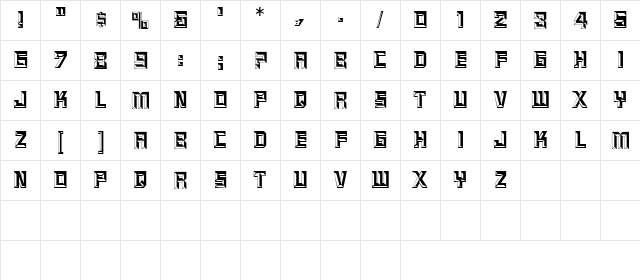
Pilgrim Normal
Design Context for Pilgrim Typeface
Pilgrim is a composed and adaptable typeface that performs quietly and consistently across a wide range of design contexts.